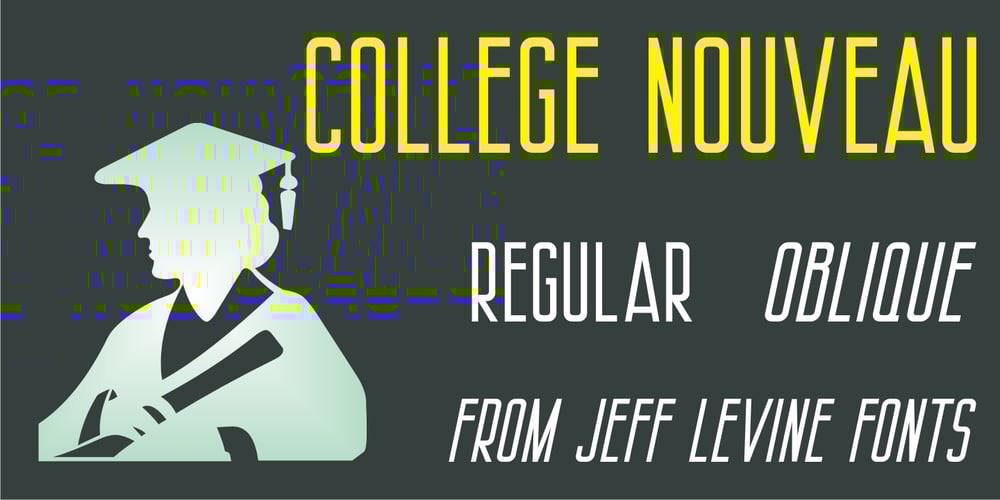
College Nouveau JNL Font Family was designed by Jeff Levine and published by Jeff Levine. College Nouveau JNL contains 2 styles and family package options. By the late 1920s, lettering and design had already begun to feel the influences of what would become the Art Deco Movement. The sheet music for the 1927 song “Without You Sweetheart” had its title hand lettered in a block style letter with rounded corners – with the exception of the ‘S’ and ‘R’ in “Sweetheart”; reflecting design elements of both styles. For consistency, those letters were changed to fit the rest of the design, and the result is the digital font College Nouveau JNL, available in both regular and oblique versions.